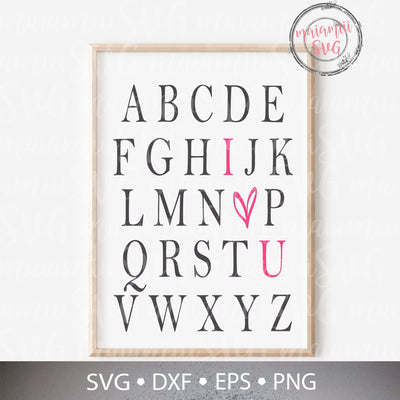
Alphabet “I Love You” SVG | ABC Heart Alphabet Cut File | Nursery Alphabet Print | Valentine’s Day Love Alphabet SVG DXF PNG | Cricut Silhouette
This charming alphabet design features the phrase “I Love You” integrated into a heart-love-styled letter set—ideal for nursery prints, Valentine’s projects, kids’ room decor or custom tees using Cricut or Silhouette.